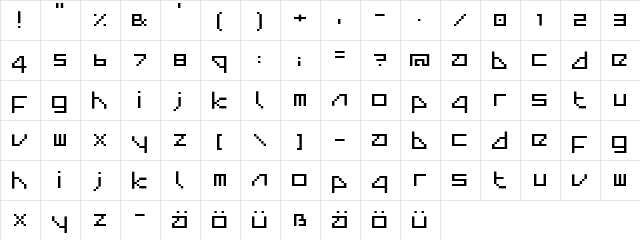
Superrazor Medium
Design Context for Superrazor Typeface
Superrazor is a composed and adaptable typeface that performs quietly and consistently across a wide range of design contexts.